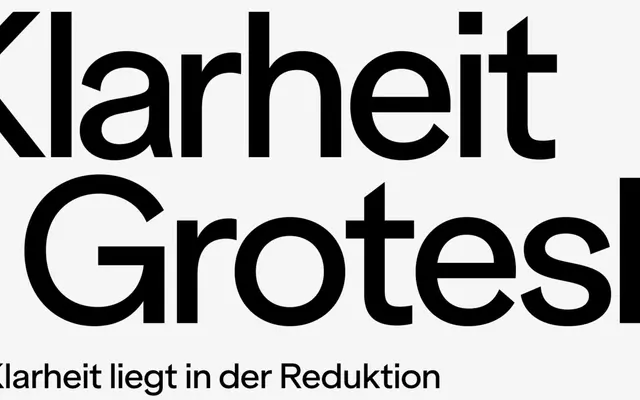
ES Klarheit Grotesk
Extraset · Alex Dujet
ES Klarheit Grotesk specimen from Extraset
A geometric sans by Alex Dujet that blends Bauhaus geometry with 1960s Swiss modernism across 8 weights, with 13 OpenType stylistic sets for shifting between neutral and expressive character.
Developed over five years by Alex Dujet, the family sits between two modernist traditions: the geometric forms of the Bauhaus and the rational precision of Swiss typography from the 1960s. Thirteen stylistic sets offer alternates including a schoolbook 'a', angular 'G', sweeping 'y' and rounded punctuation, letting designers tune the typeface between clean neutrality and more distinctive graphic positioning. The 16-style family covers broad Latin Extended coverage including Vietnamese and Chinese Pinyin, with full italic cuts across all eight weights.
Draws explicitly on Bauhaus geometric principles and 1960s Swiss modernism, placing it firmly in the geometric grotesque tradition with extensive OpenType alternates that allow it to shift between neutral and more assertive registers.